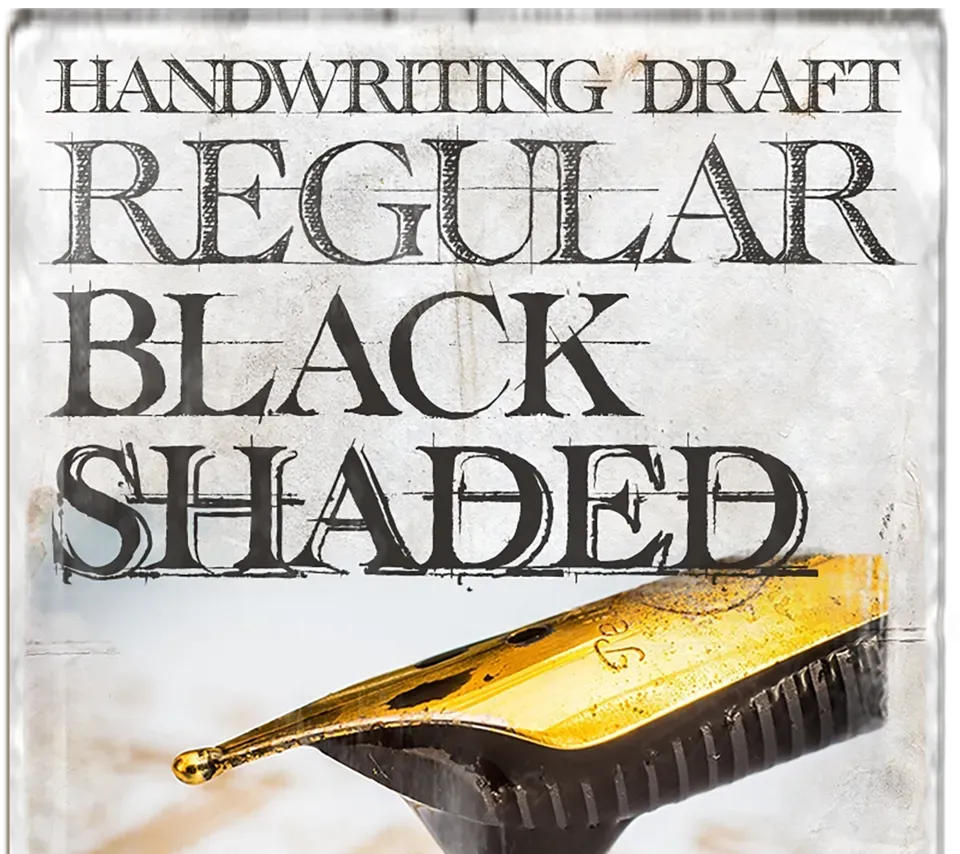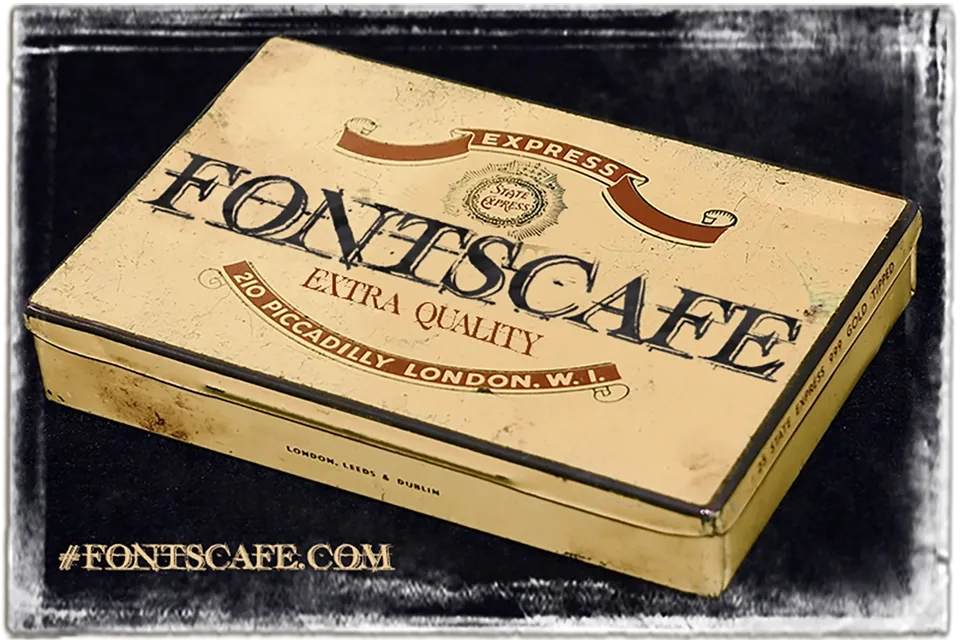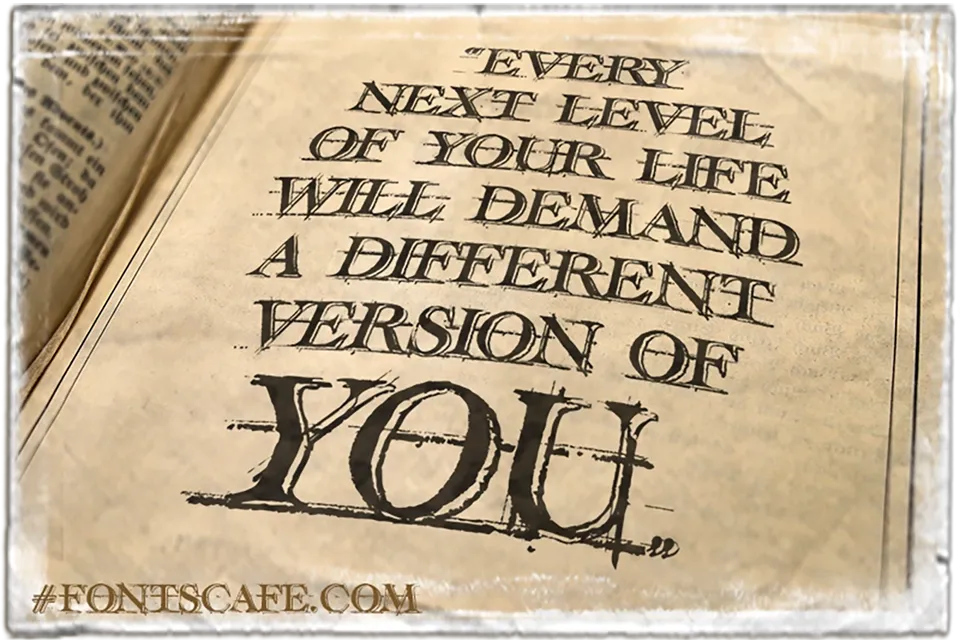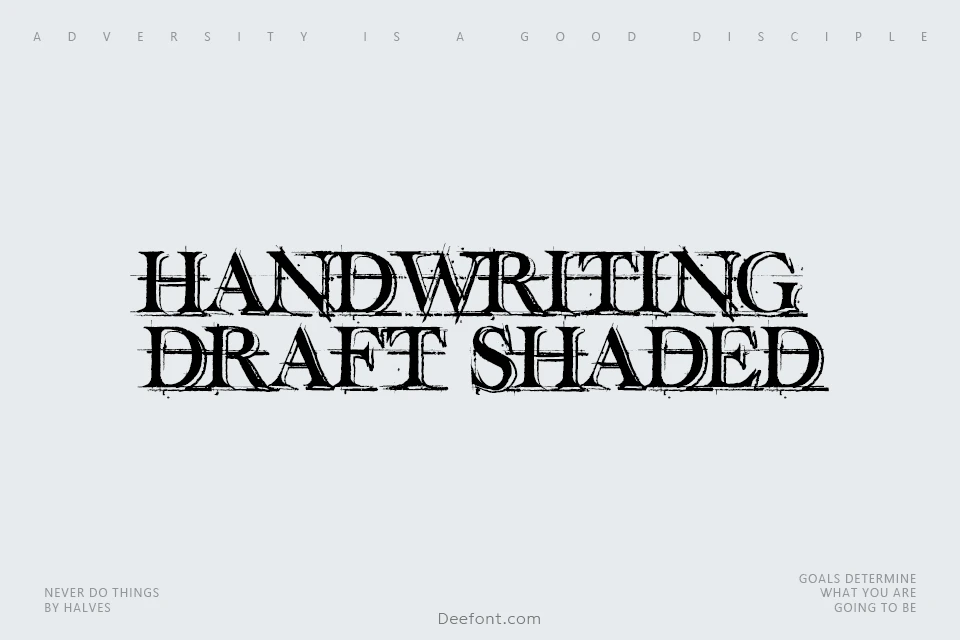
Handwriting Draft Shaded Font
Handwriting Draft Shaded Font is a bold and distinctive handwritten typeface featuring unique shadows, rough outlines, and distressed elements. Designed to evoke the feel of ink on paper, this font brings a handcrafted, vintage draft quality to your creative work. Perfect for posters, branding, and editorial designs that require a touch of authenticity and artistic flair.